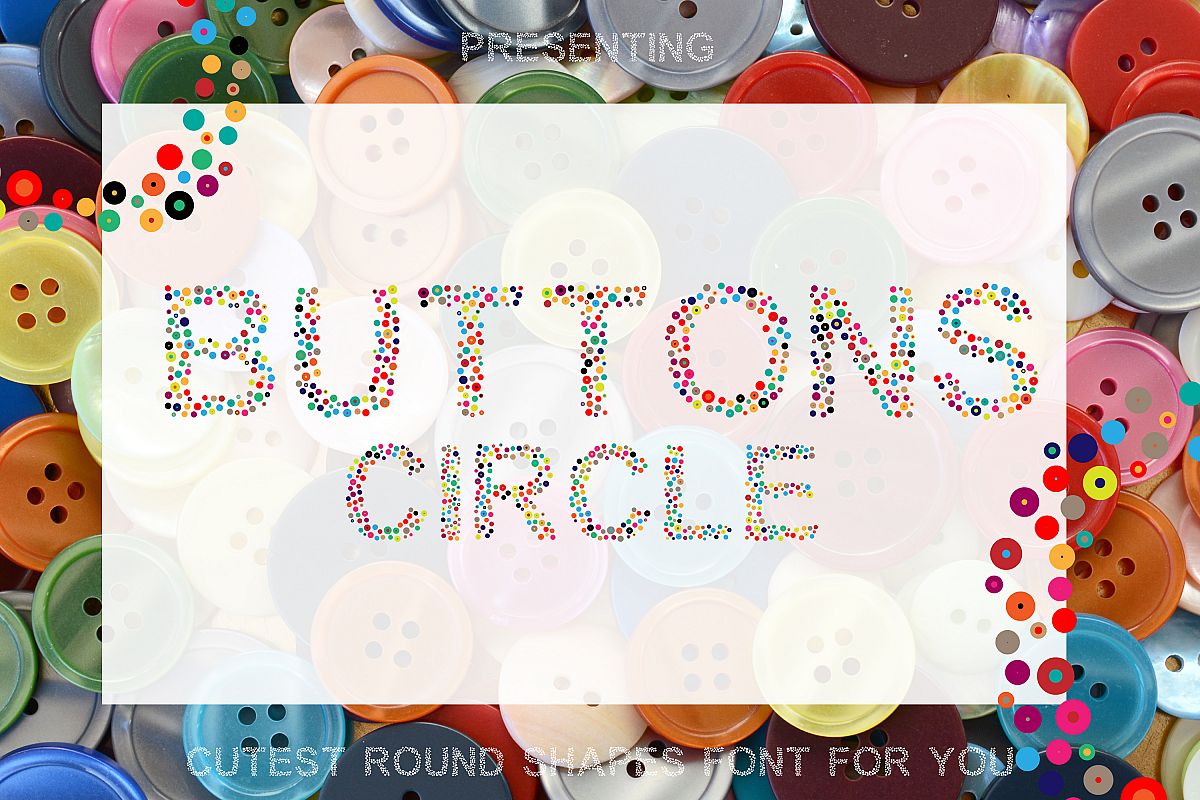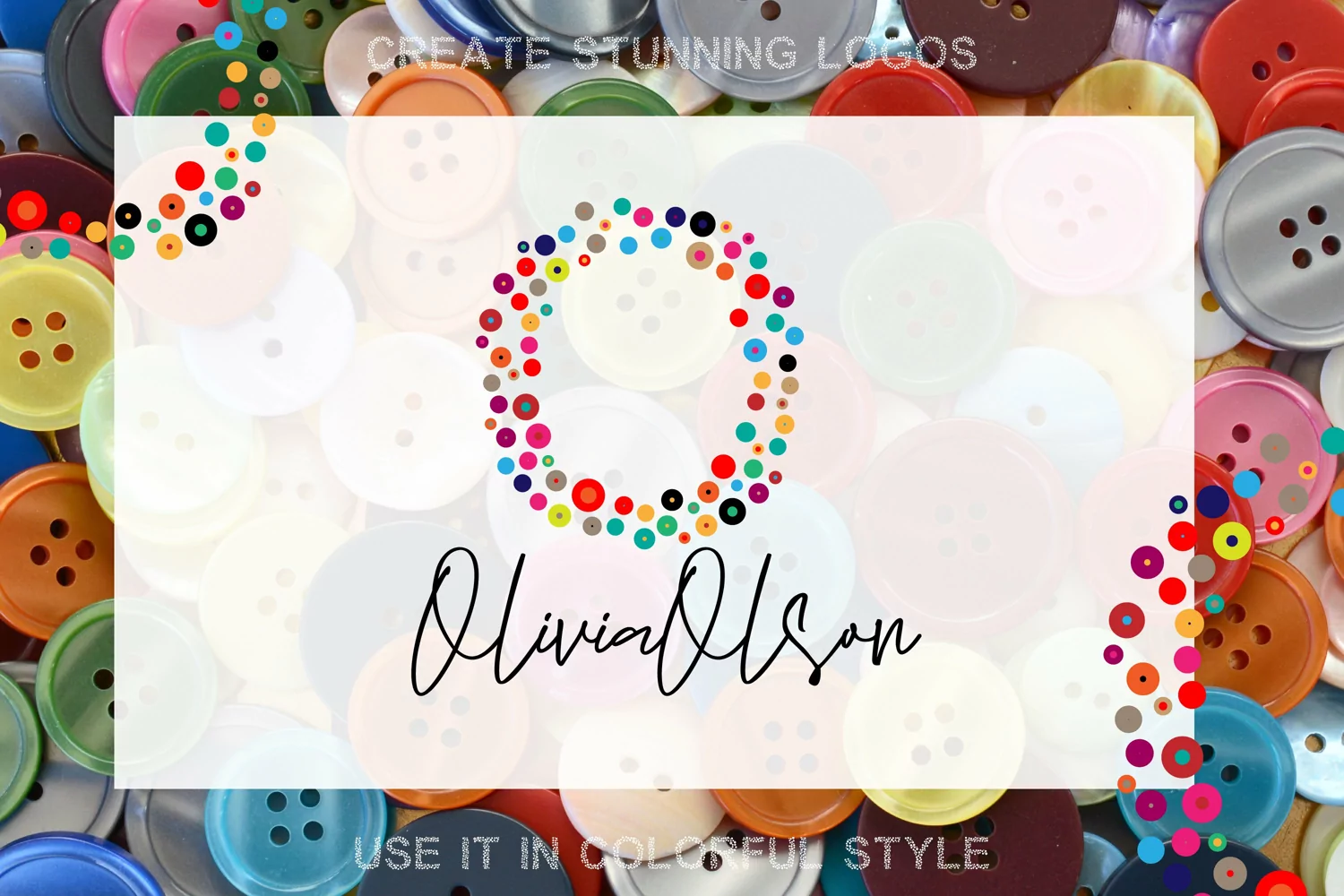
Button Circle - A Simple Round Font
Presenting Cute font for you. This can be used in tons of projects specially in child and new born projects. You can use it for craft purpose and this will looks great on shirts, printing material and other stuff.
2- UPPER Case only Letters A to Z and 0-9 Numbers
3- Super Cute and Creative